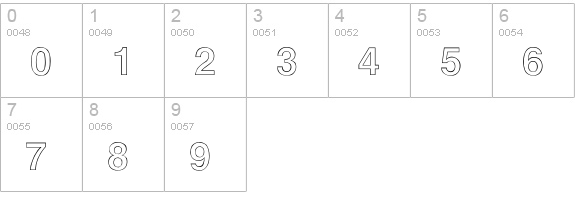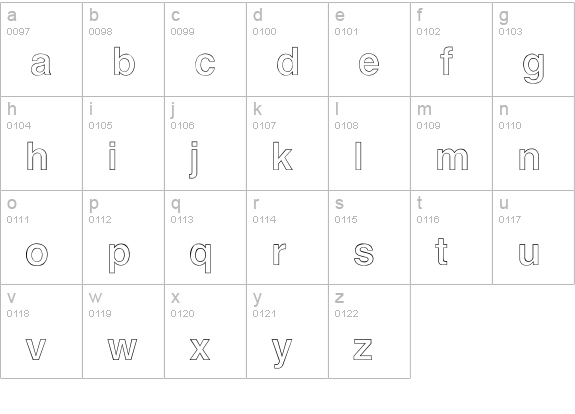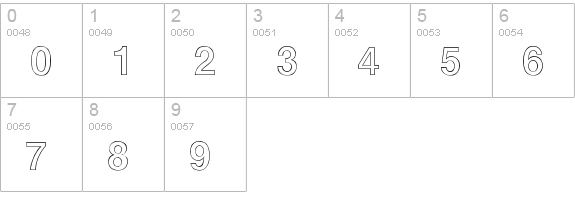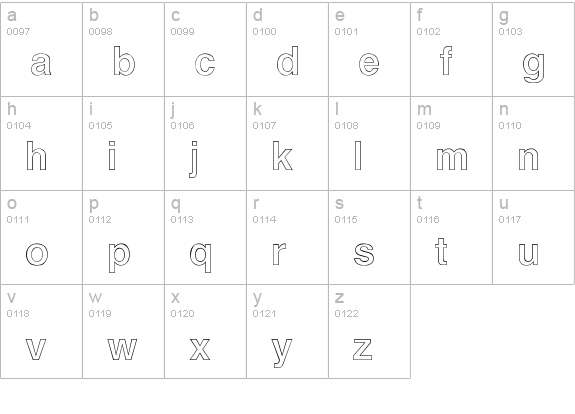
SuperDome-Outline font is a modern and sleek typeface that exudes a sense of sophistication and style. With its clean lines and bold outlines, this font is perfect for making a statement in your designs. Whether you're creating posters, logos, or branding materials, SuperDome-Outline font will add a touch of elegance to your projects. What's even better is that SuperDome-Outline font is available for free download at FontsMarket.com. You can easily access this versatile font and start using it in your designs without any cost. Don't miss out on the opportunity to enhance your creative projects with the distinctive charm of SuperDome-Outline font. Download it today and elevate your designs to the next level.